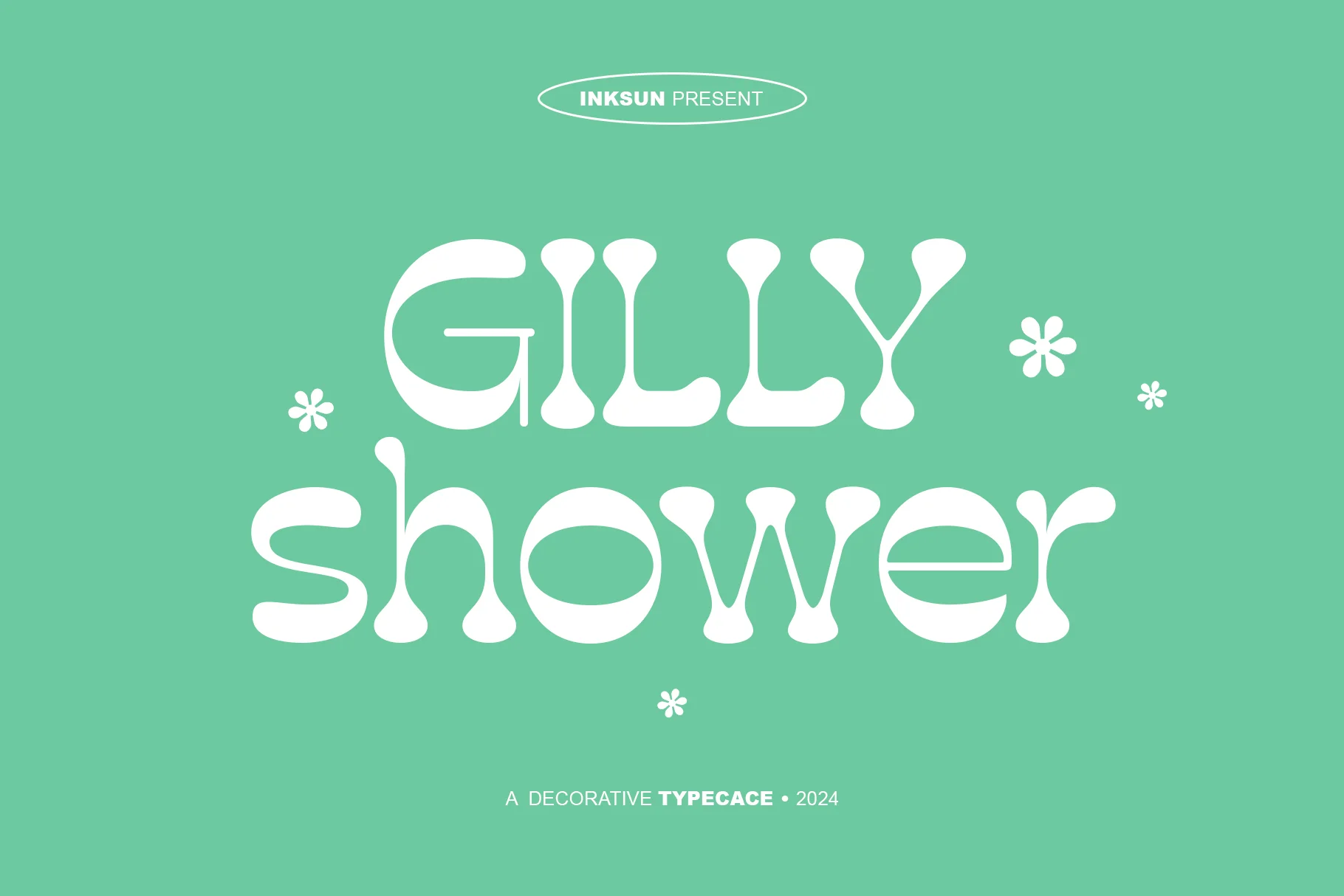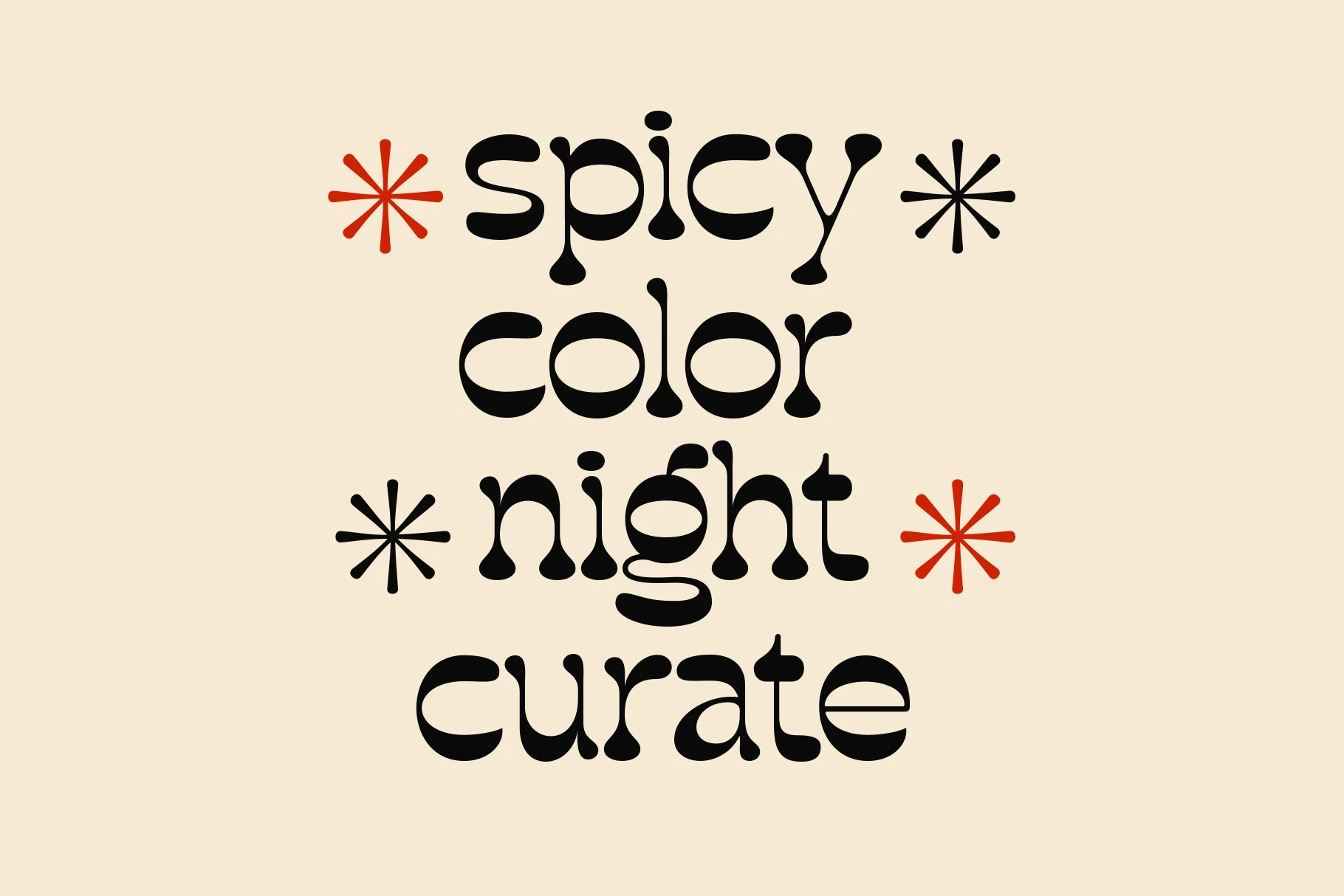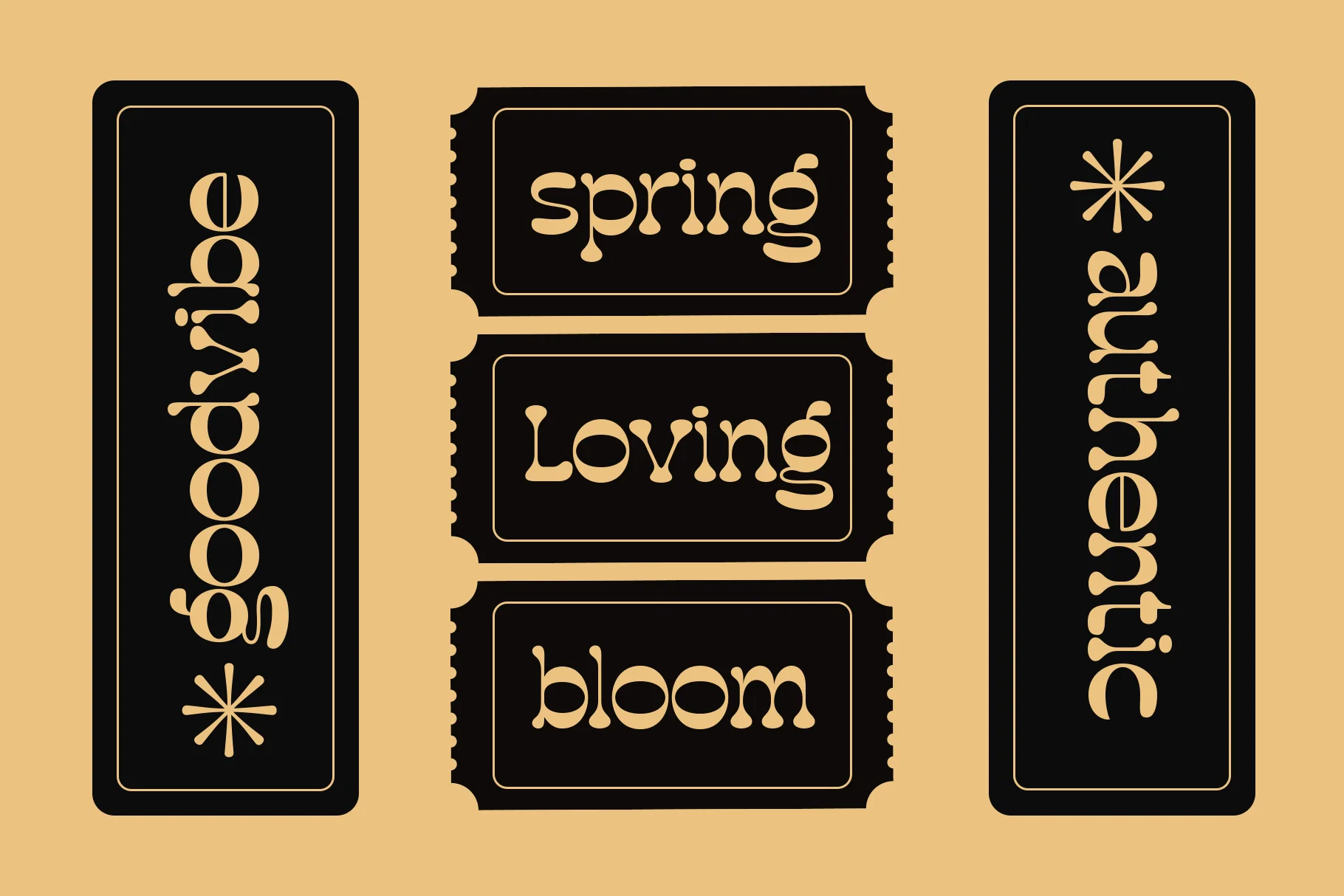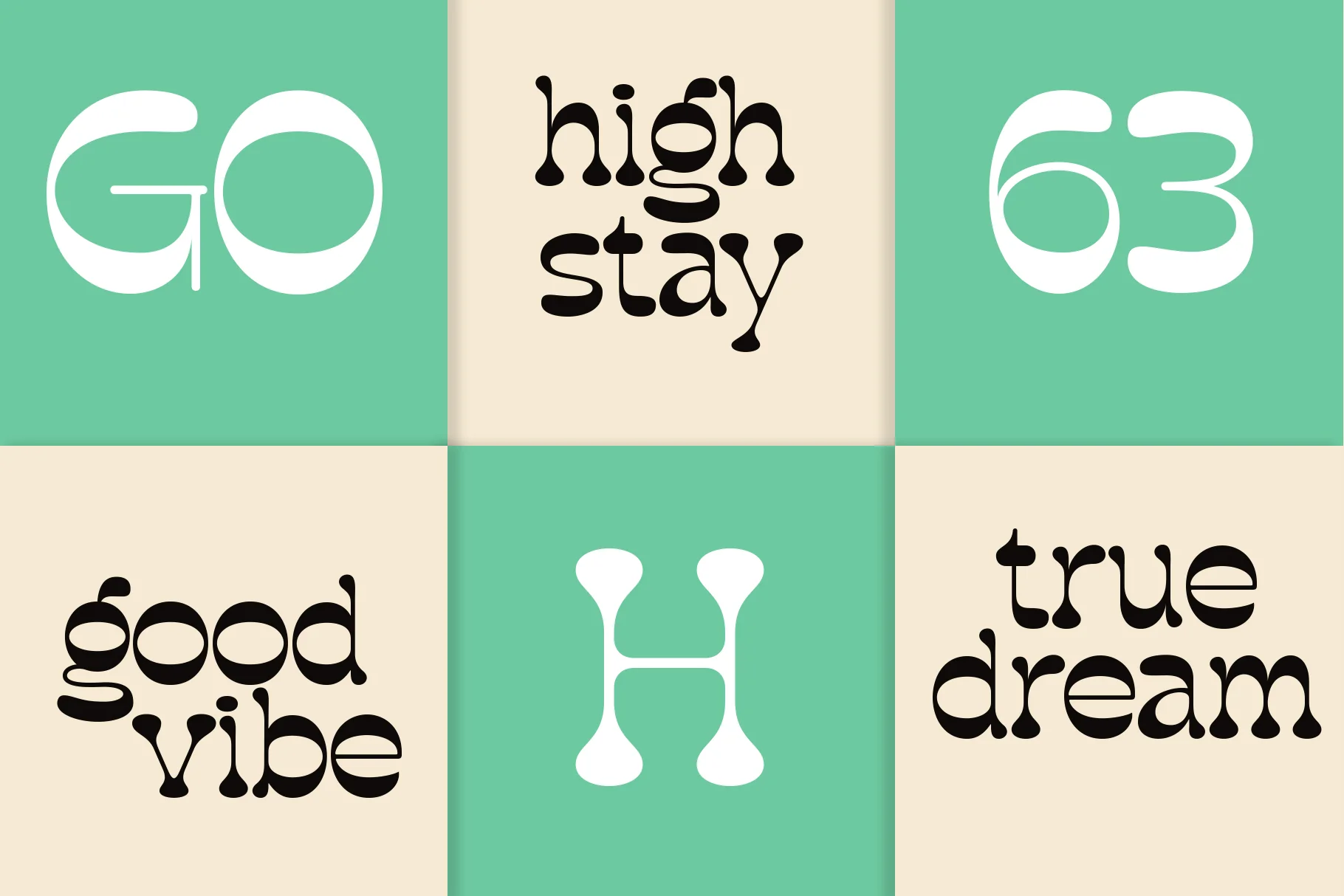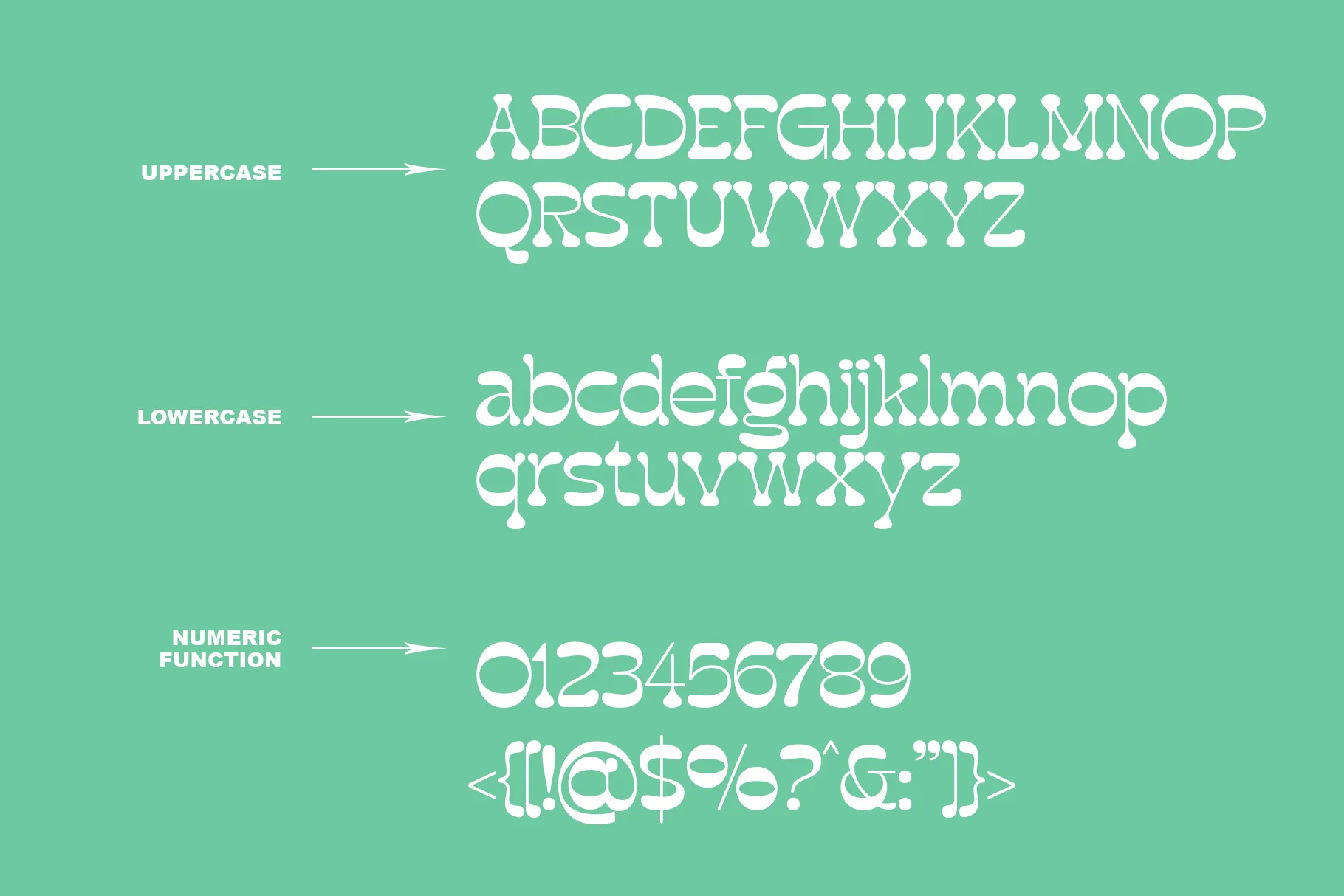
Gilly Shower
This font has a rounded, "soft" bubble-like shape, giving it a trendy retro-modern feel. Each letter is designed with a natural, flowing curve, avoiding sharp corners to create a soft and pleasant feel.
As befitting its decorative typeface category, this font has a distinct personality and can stand alone as a key graphic element.